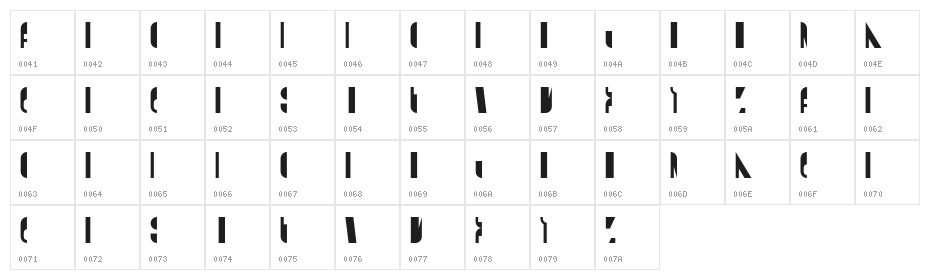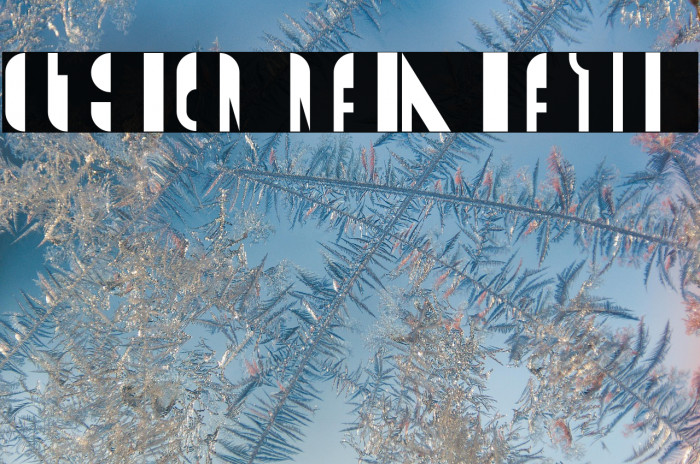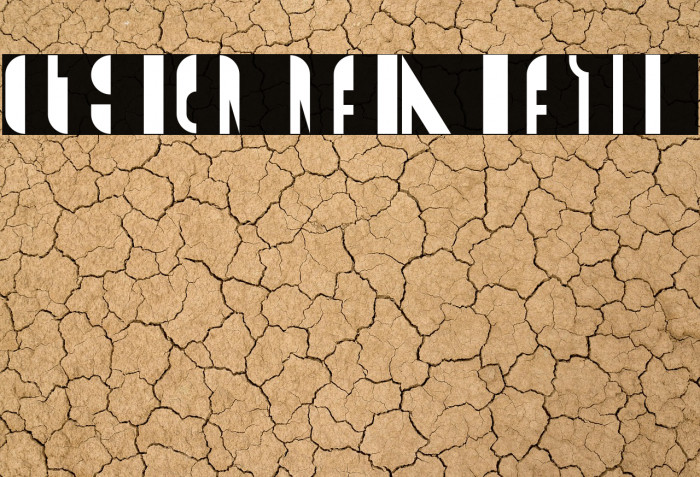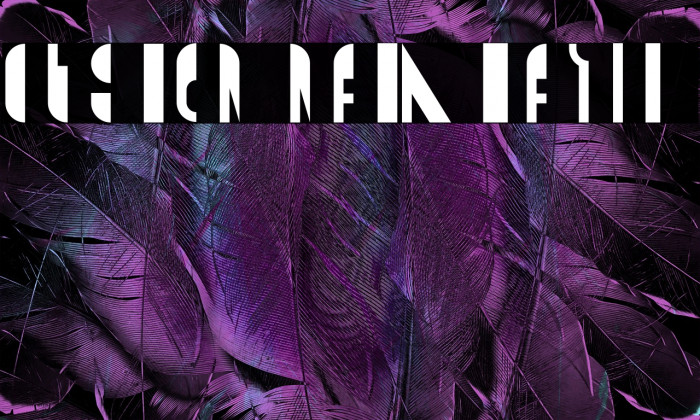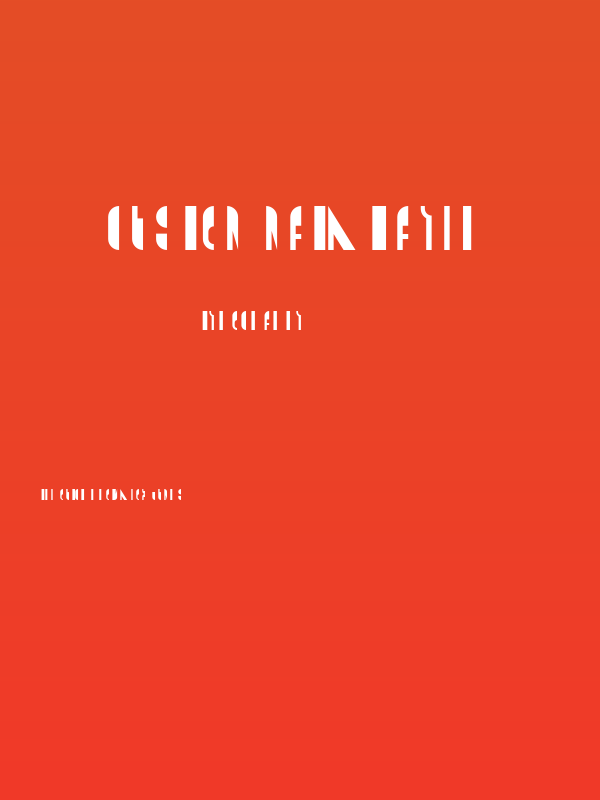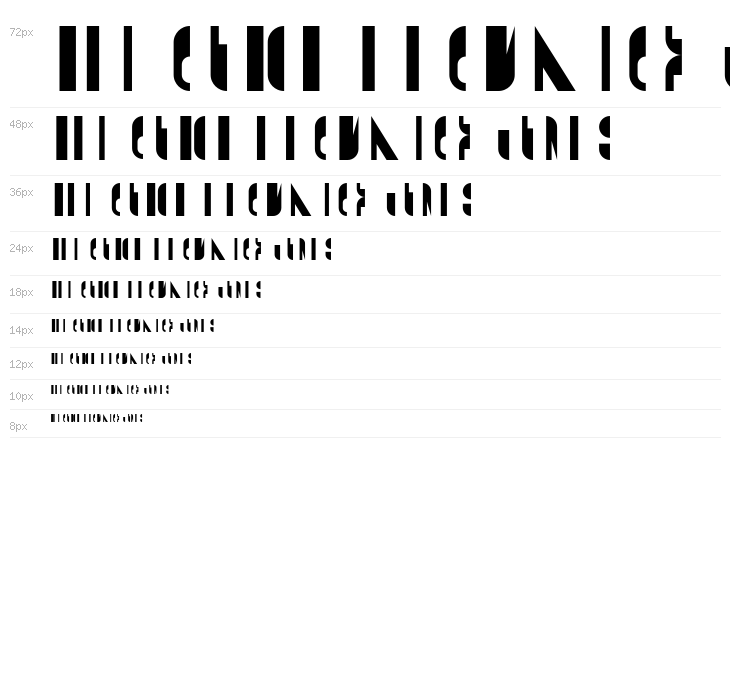
Custom Main Layer Font
This font features a bold and striking design with a highly geometric and abstract style. Each character is constructed using solid, block-like shapes that create a sense of modernity and innovation. The letters are composed of thick vertical and horizontal lines, with some characters incorporating sharp angles and unique cutouts that add to the font's distinctiveness. The overall appearance is both futuristic and artistic, making it ideal for creative and contemporary projects. The font's design is consistent across uppercase and lowercase letters, as well as numbers and special characters, maintaining a cohesive and unified look.
| Proposed Projects | Ideal for branding, posters, album covers, and modern art installations. |